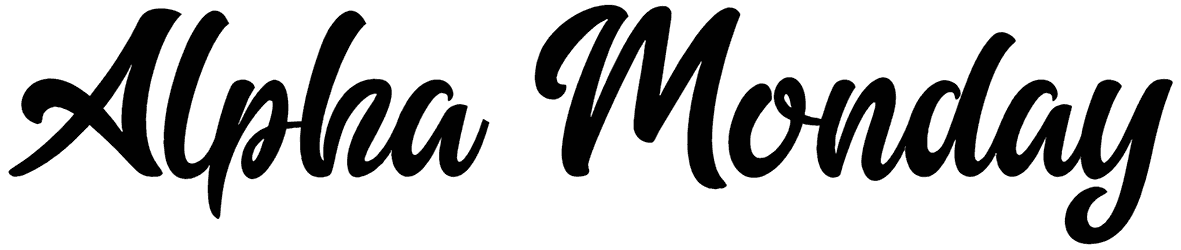
Alpha Monday Font
To level up your designs, you can take advantage of Alpha Monday. This script font offers medium letters and can be convenient for different projects like; flyers and posters, invitation cards, or any digital and printed…
Designed byEKNOJI
To level up your designs, you can take advantage of Alpha Monday. This script font offers medium letters and can be convenient for different projects like; flyers and posters, invitation cards, or any digital and printed layout you consider. Download it now and in case you need more, scroll up to RB.